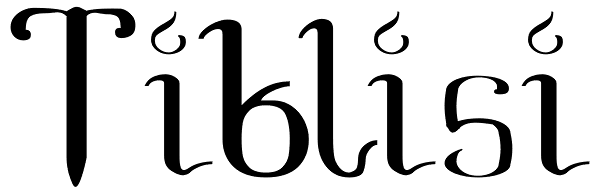
Tiblisi
Tiblisi is a font designed to emulate the feel of modern Georgian Script, which is called Mkhedruli. In earlier periods of her history, the Georgian language had several other alphabets, notably the Asomtavruli alphabet and the Nuskha-khucuri...